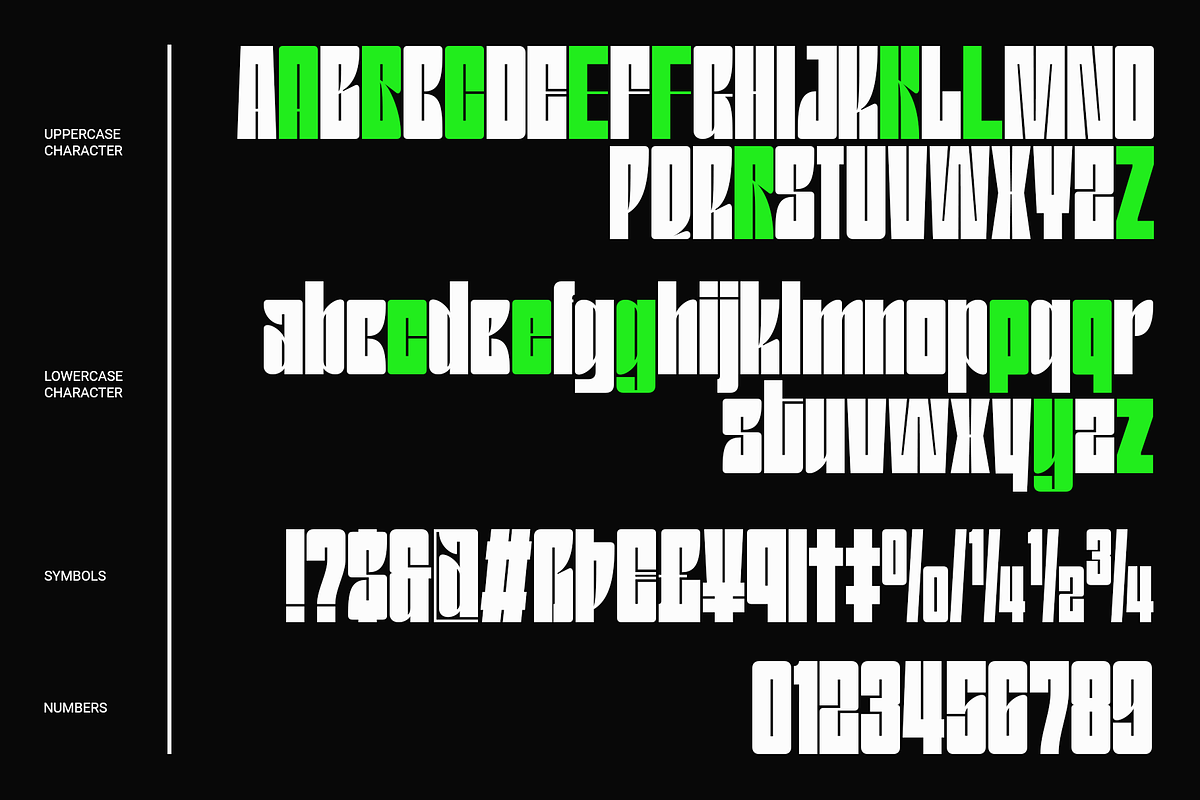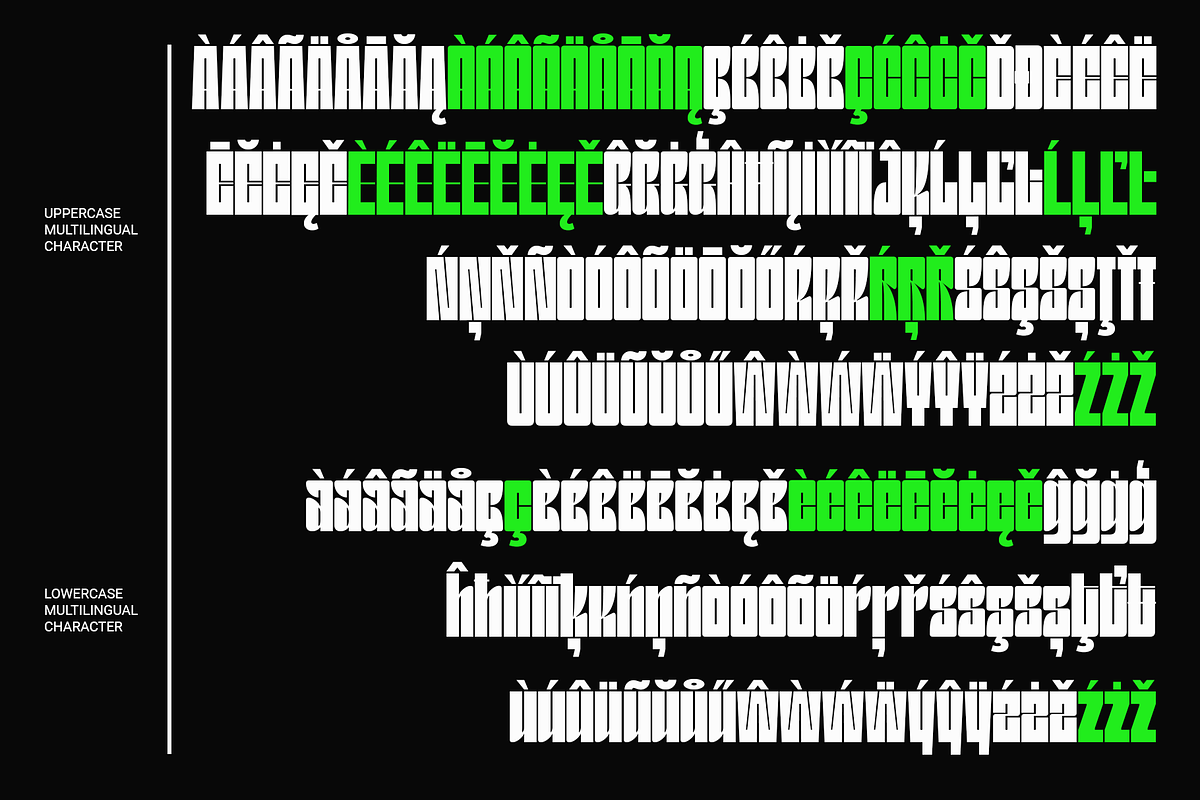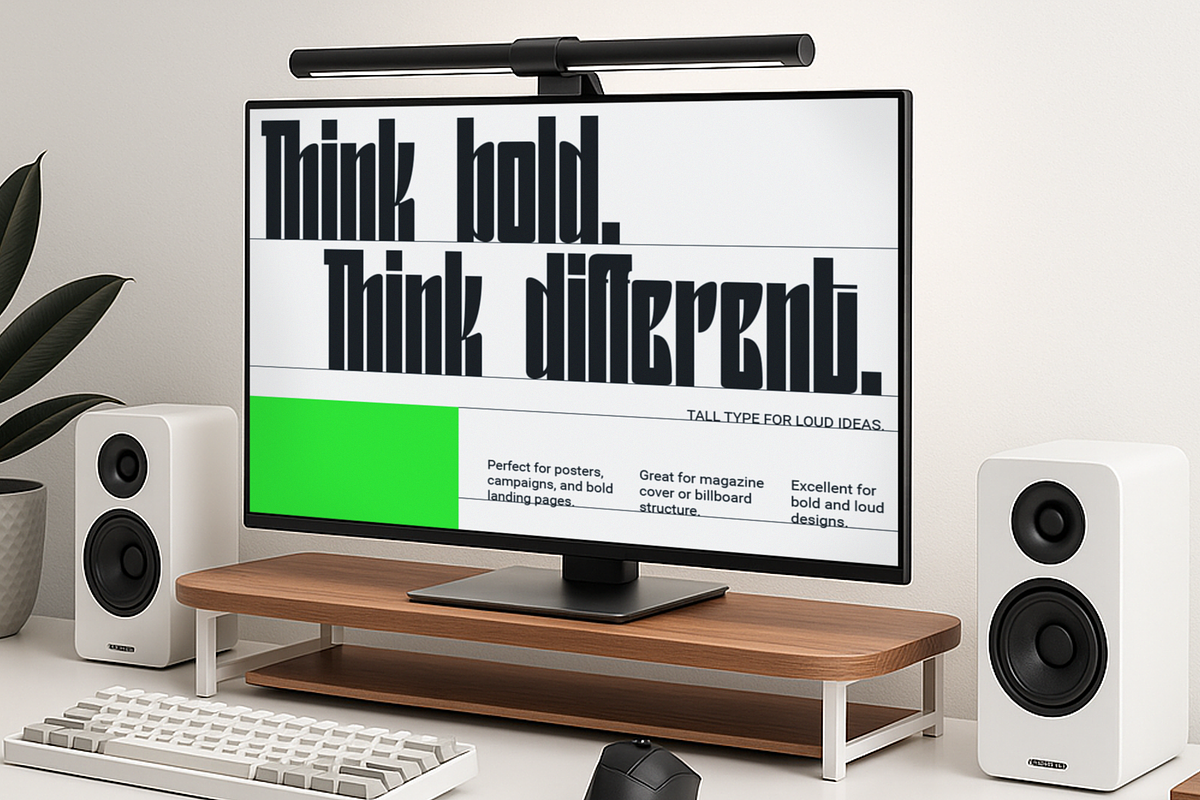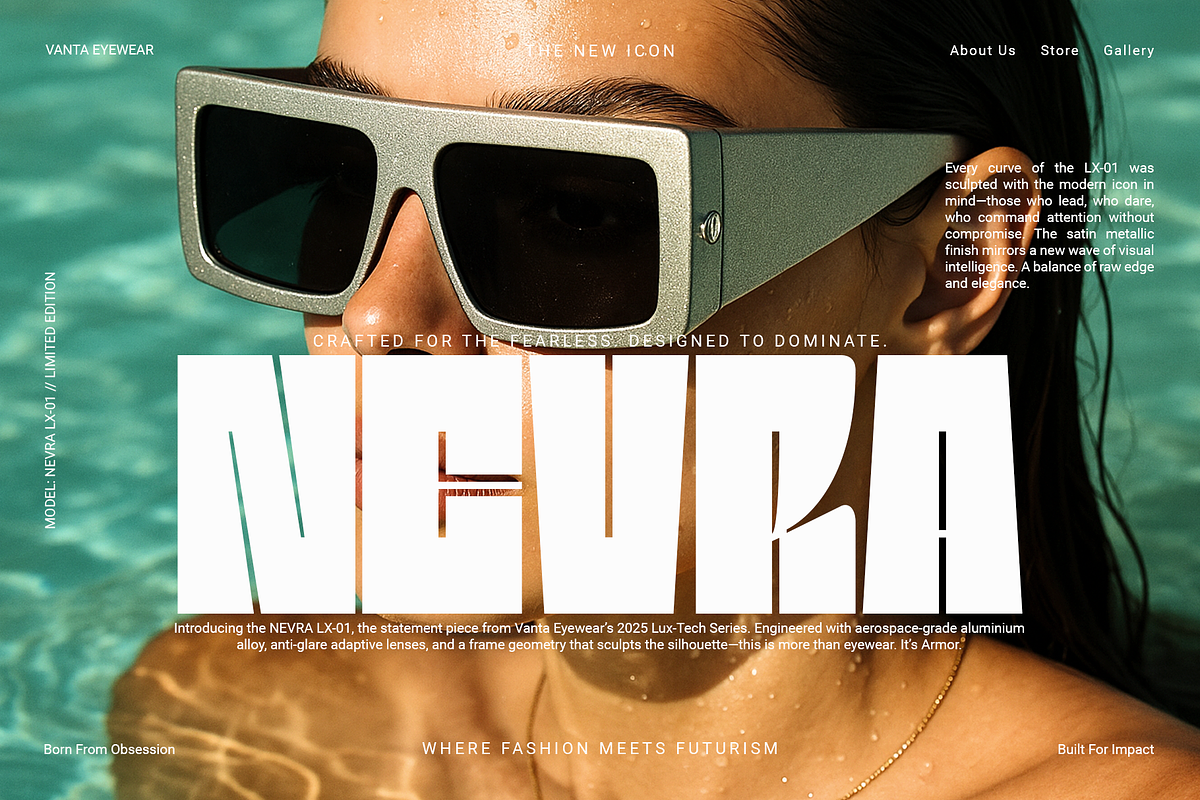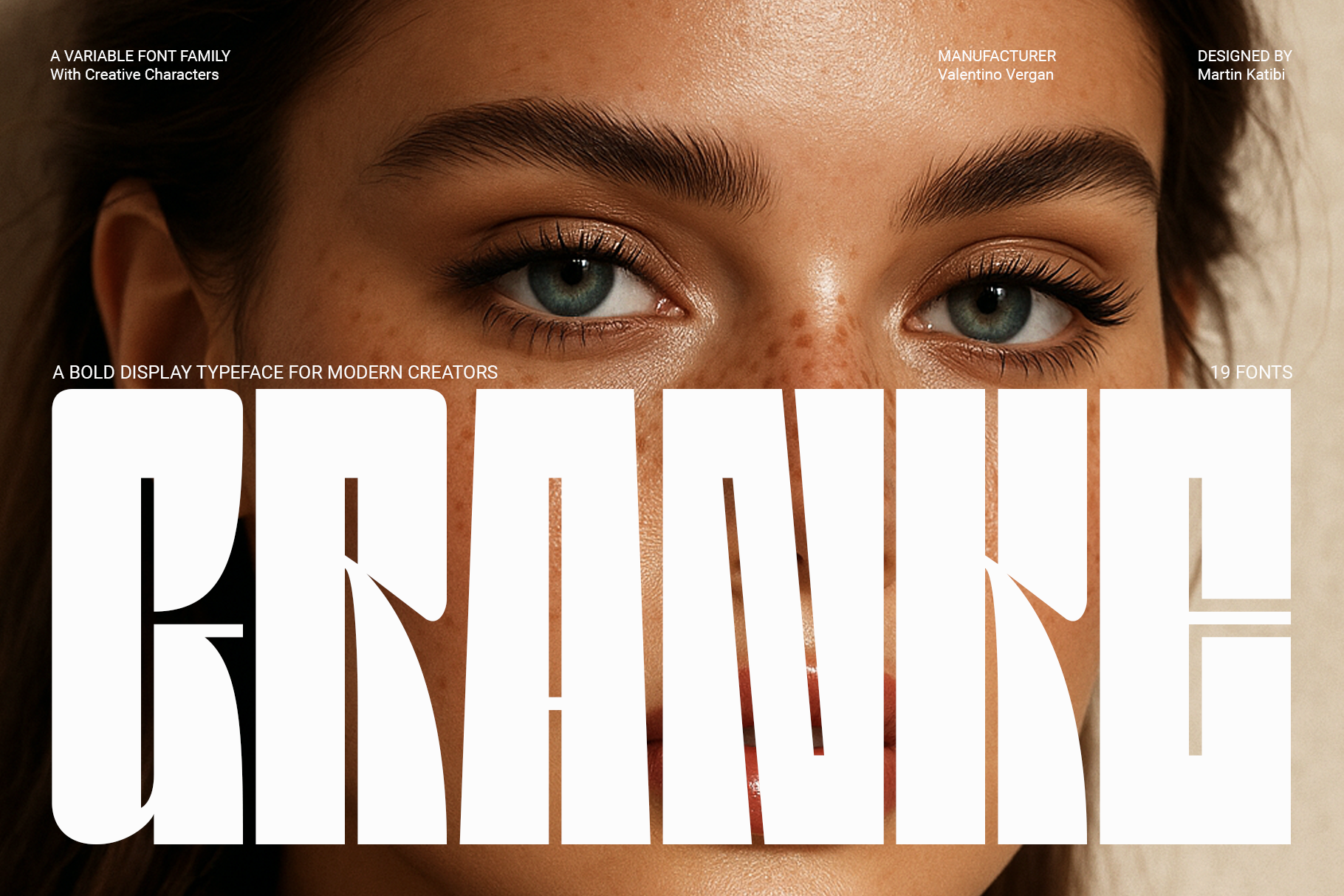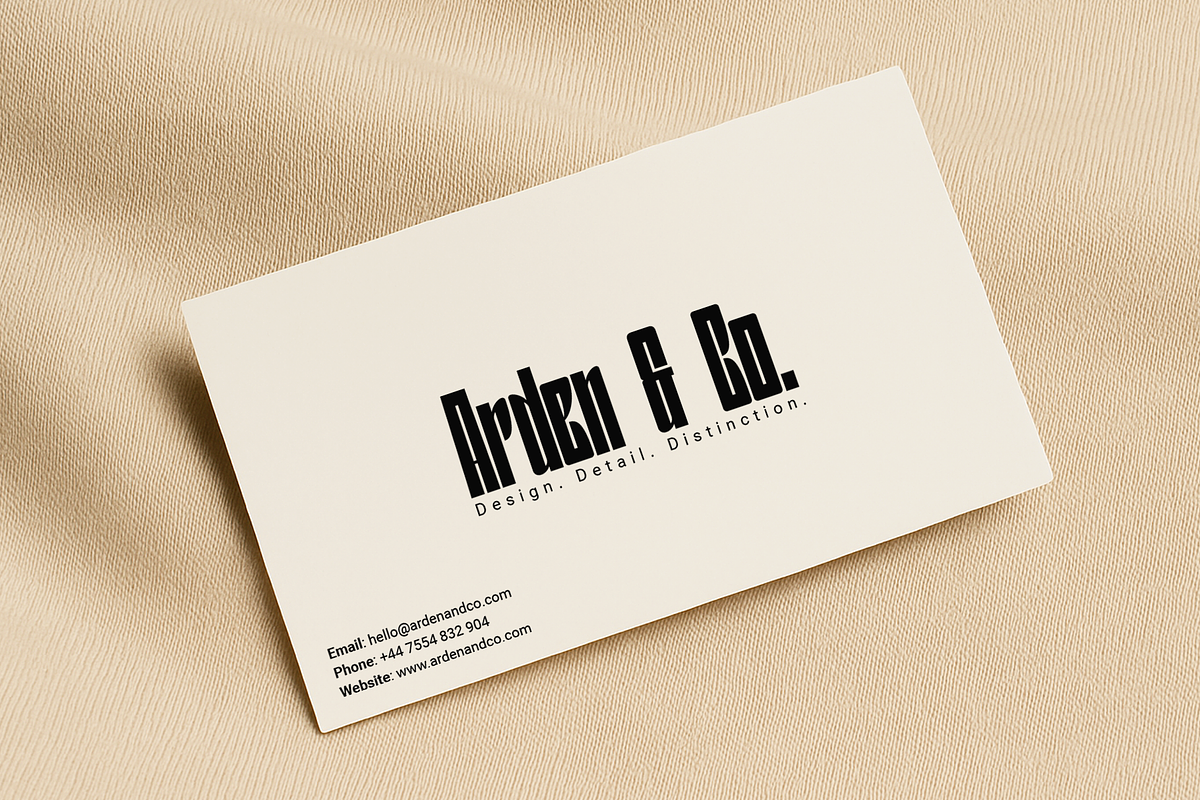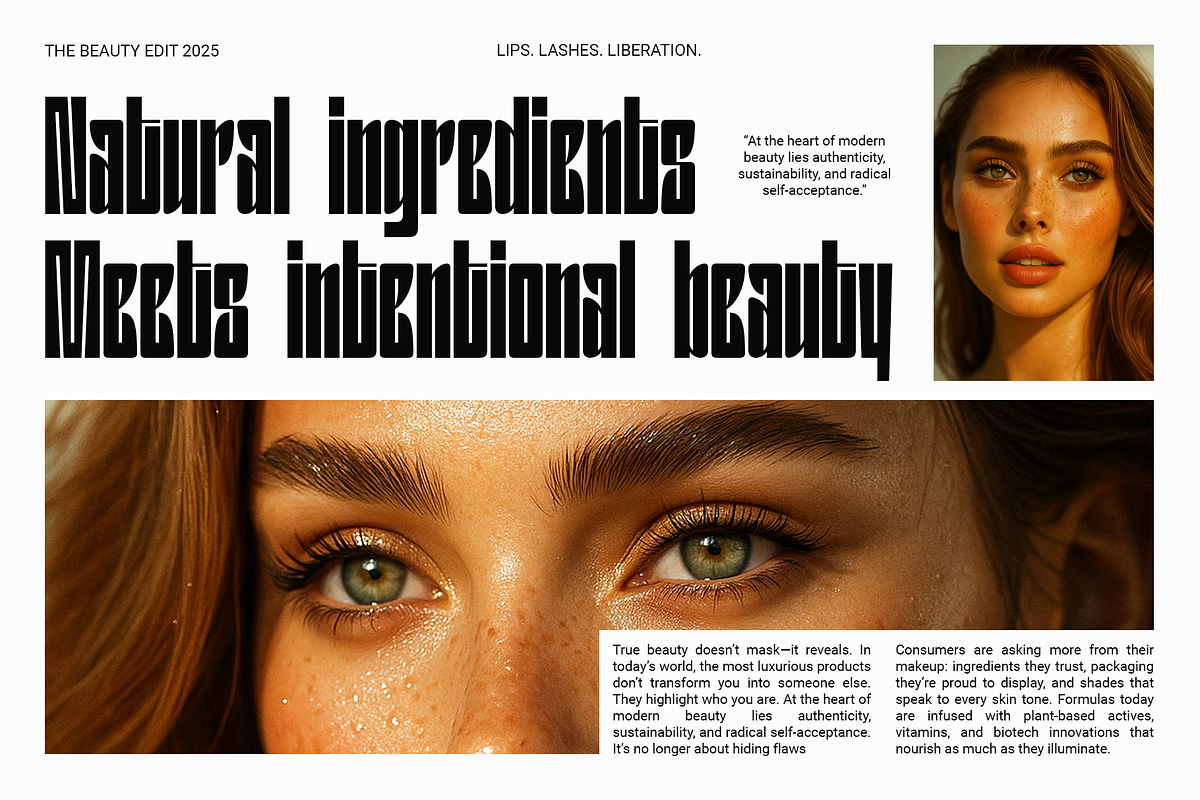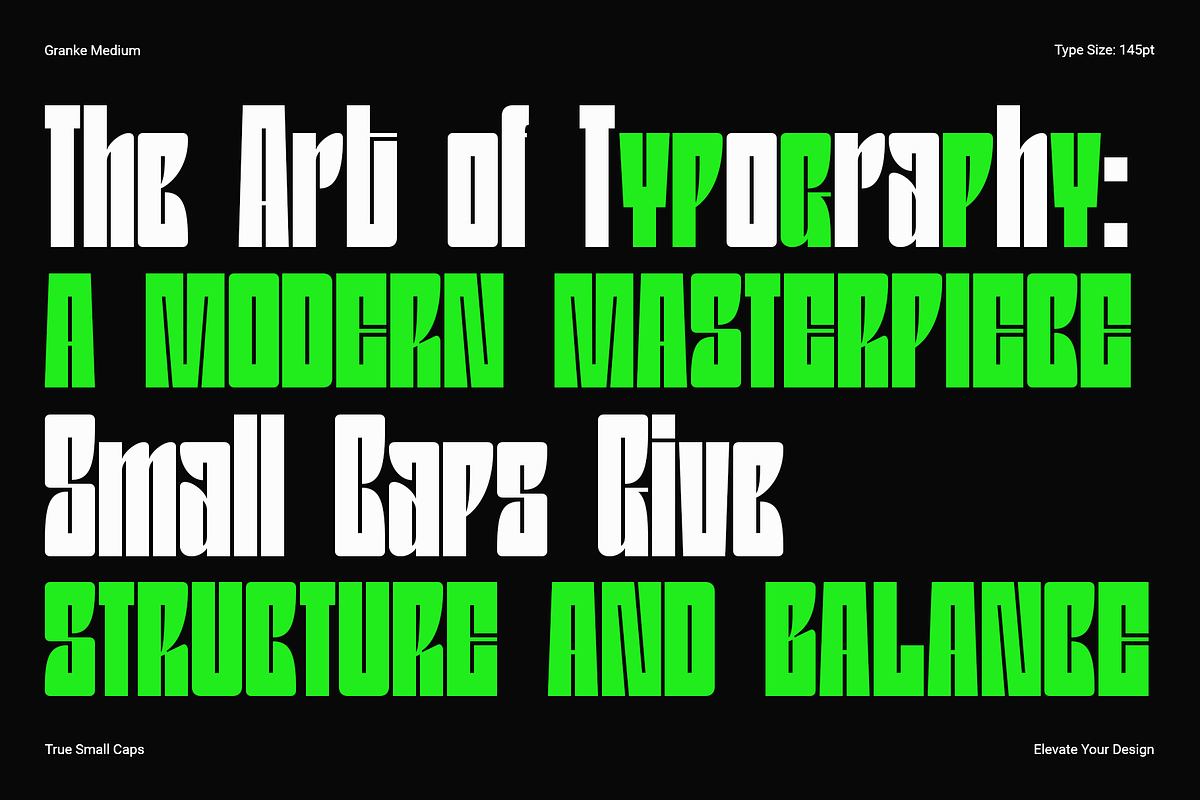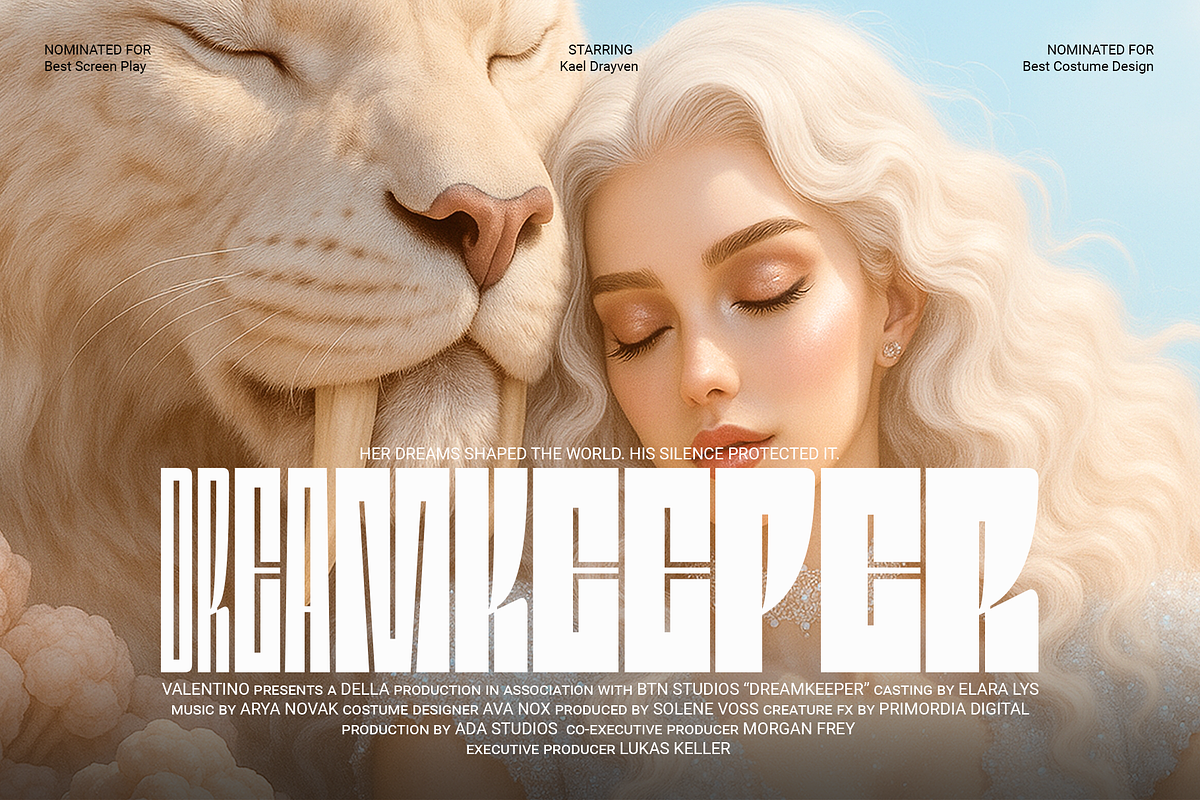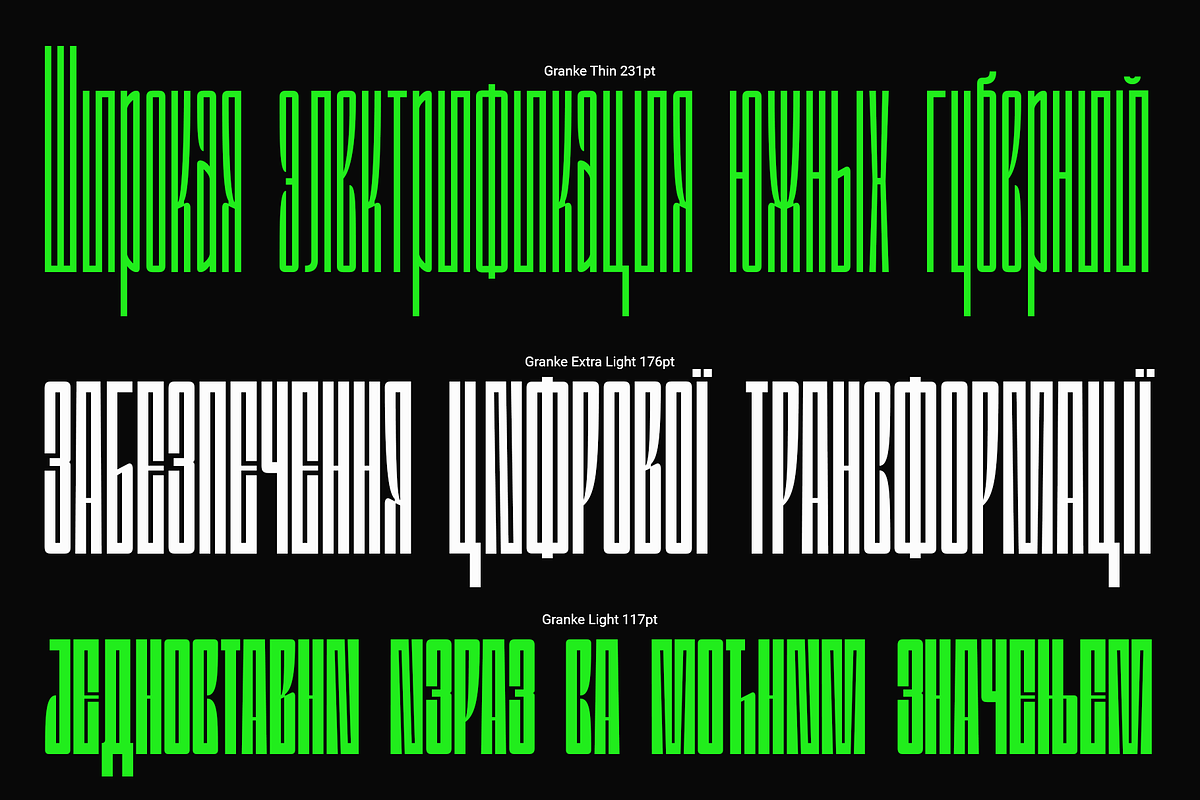
Granke - A Bold Display Typeface
Granke is more than a font — it’s a statement piece for designers who demand presence, flexibility, and a global voice in their typographic work. With tall, striking letterforms and a bold personality, Granke commands attention in everything from brand identities and editorial spreads to ad campaigns, UI interfaces, and motion graphics.
Designed with the needs of today’s creatives in mind, Granke is the perfect type solution for those who work across multiple formats and languages — without sacrificing style or function.
DESIGNED FOR MODERN DESIGN CHALLENGES
Whether you’re building a brand universe, launching a bold campaign, or designing social media graphics, Granke helps you create typography that feels confident, contemporary, and culturally relevant. Granke Is tailored for:
Creative directors shaping visual narratives.
Branding teams designing scalable identities.
Graphic designers producing scroll-stopping layouts.
Advertising agencies crafting persuasive, typographically driven messages.
FONT FEATURES THAT WORK AS HARD AS YOU DO
9 expertly drawn weights from Thin to Black — each with a matching oblique for dynamic layouts.
Fully functional Variable Font for real-time control over weight and slant.
Extended Latin + Cyrillic support — perfect for multilingual brands and international campaigns.
True Small Caps for refined hierarchy and editorial precision.
Creative ligatures and unique alternates to unlock expressive layouts and unexpected type treatments.
ON-TREND AND FUTURE-READY
Granke embodies key design trends:
Tall display proportions that cut through digital noise.
High-impact branding flexibility with maximum scalability.
Global typographic reach to serve diverse markets.
Typographic contrast using small caps, alt glyphs, and obliques.
Variable technology to future-proof your design stack.
Whether used in posters, packaging, apps, websites, or video, Granke performs across mediums with clean legibility and undeniable character. Start designing with Granke today.